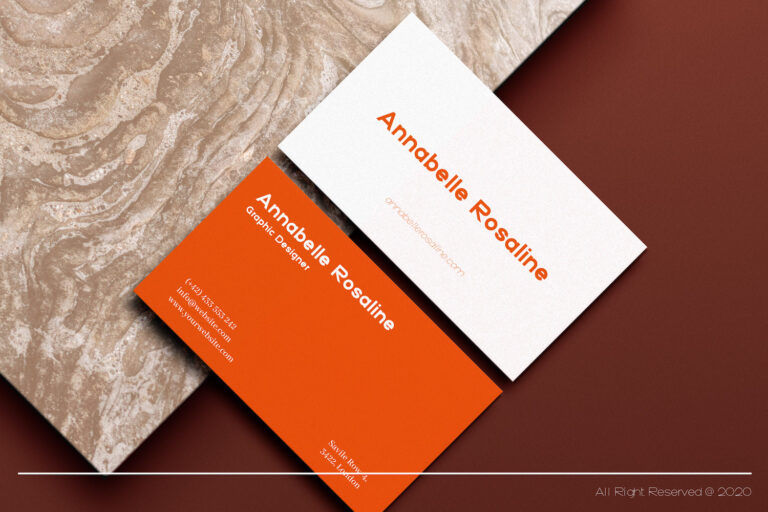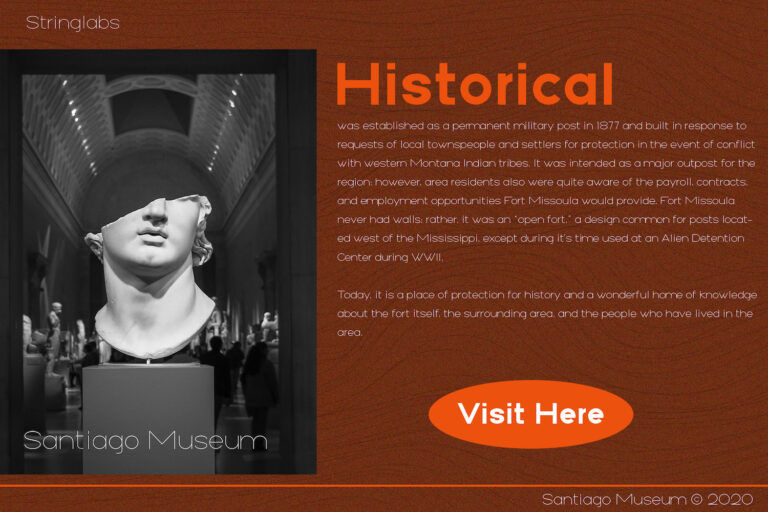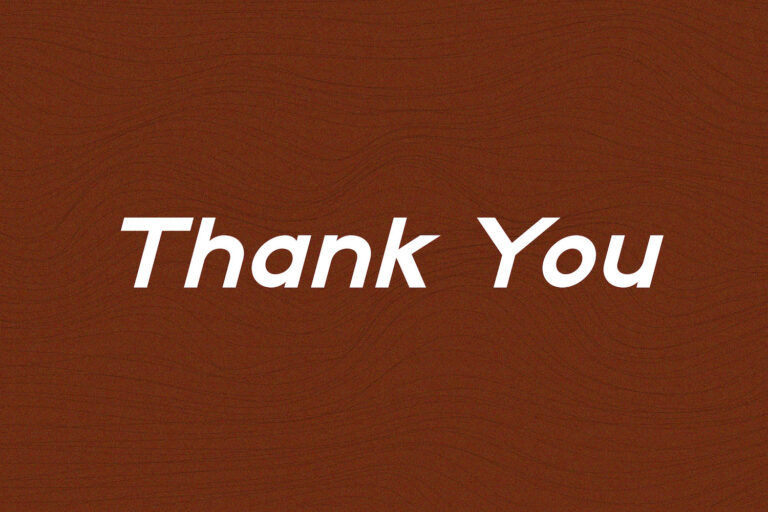
Aginoe is a modern sans serif font that feels sleek, clean, and minimalist. At a glance, its thin and smooth strokes and geometric structure give off a contemporary “editorial + UI” vibe—sharp enough for calm and elegant modern layouts.
- Comfortable to read (when used wisely):
Its letterforms are simple and balanced, with subtle curves and consistent strokes that make text look neat. Lighter weights feel airy and premium, while bold styles add clarity and emphasis. For best readability, use lighter styles at medium to large sizes with strong contrast, and avoid placing it over busy textures. - Professional and polished appearance:
Aginoe naturally supports a clean visual hierarchy—thin styles for subtle headings or captions, bold for strong titles and calls to action, and italics for gentle emphasis. The overall tone feels modern, structured, and design-oriented, making layouts look more intentional and “brand-ready.” - Highly suitable for digital use:
Its minimalist shapes and consistent spacing make it look beautiful in web design, app/UI mockups, landing pages, social media banners, and presentation slides. This font also looks especially good for prices, numbers, and straightforward short text, where its sleek geometry becomes a visual feature.
For best results, Aginoe is well suited to design styles such as minimalist branding, modern editorial layouts, technology/product visuals, museum/event promotions, and clean portfolio designs—anything that benefits from spacious layouts, clear hierarchy, and contemporary typography.